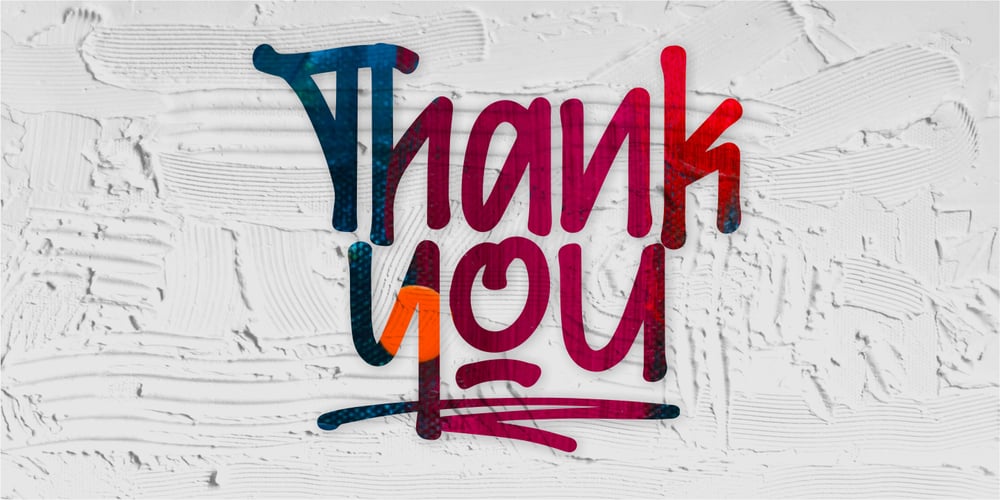
Maxtield
Maxtield font
Maxtield Font Family was designed by Risman Ginarwan and published by Garisman Studio. Maxtield contains 2 styles and family package options. Maxtield combines attractive curves with a fresh urban edge; delivering a stylish which is guaranteed to add an eye-catching appeal to your logo designs, brand imagery, handwritten quotes, product packaging, merchandise, social media post, or website font.